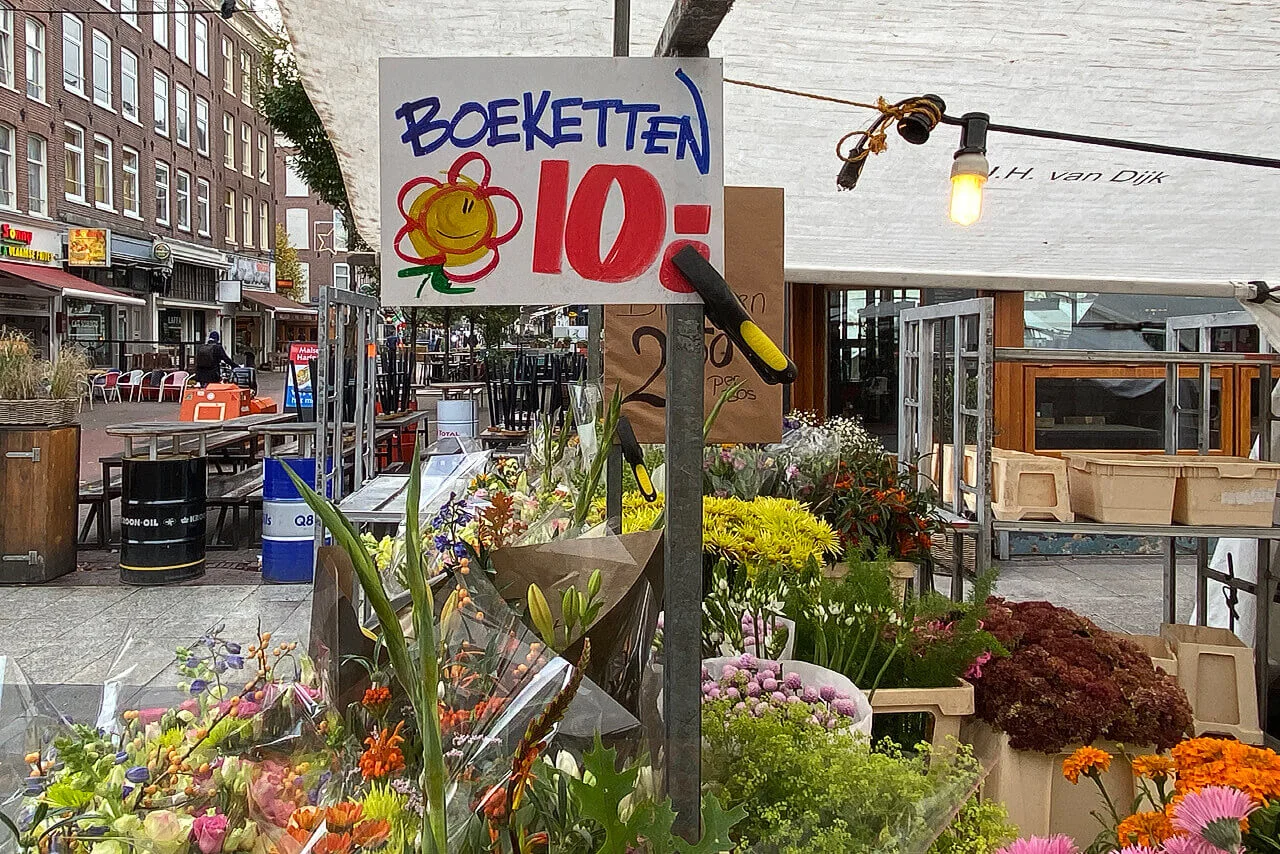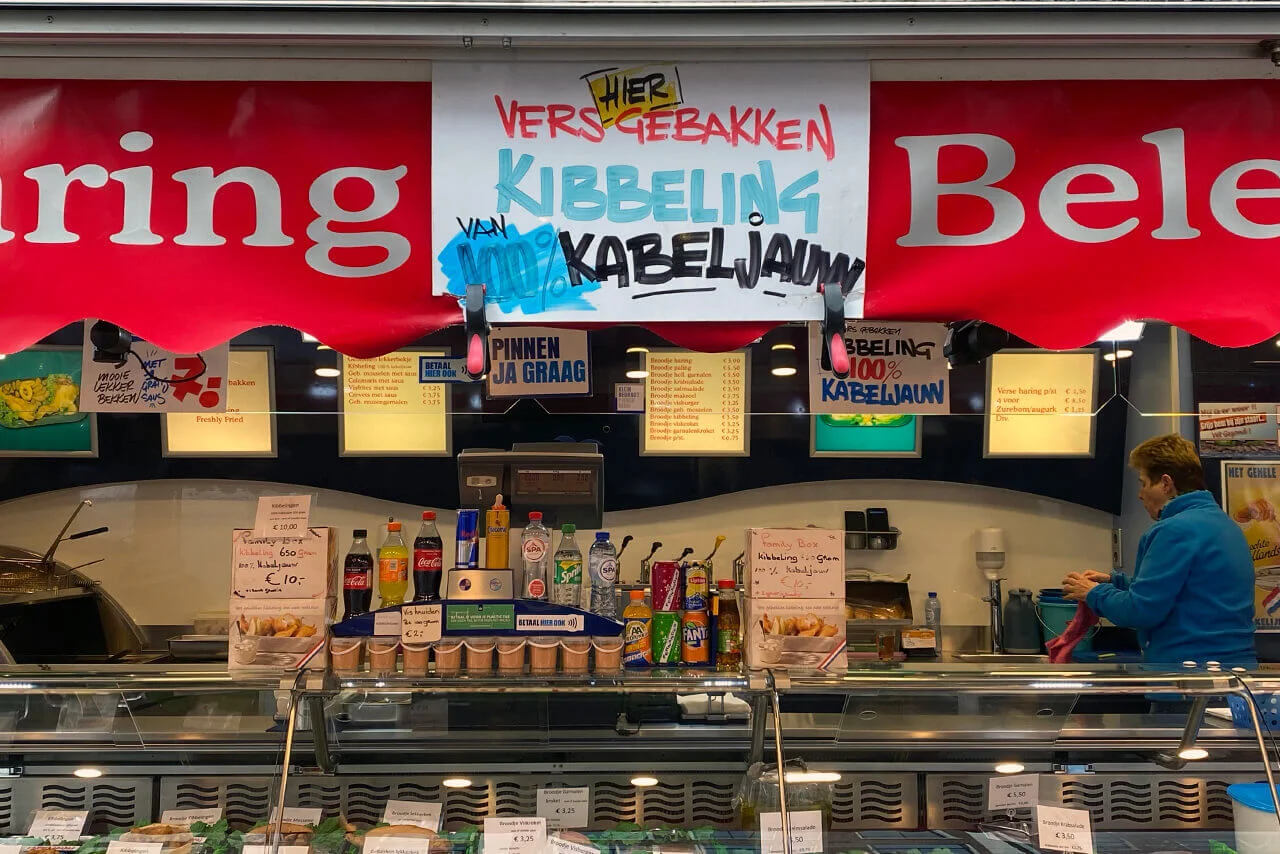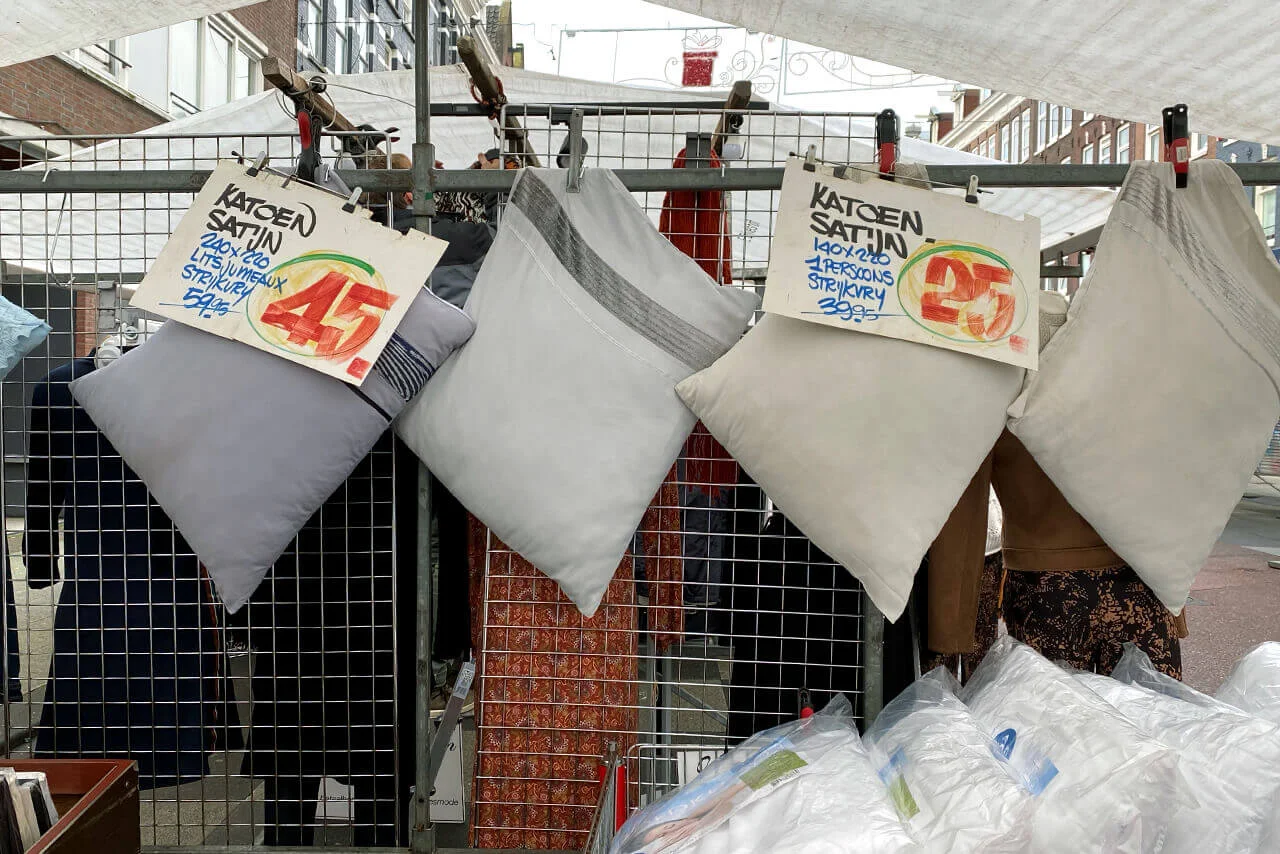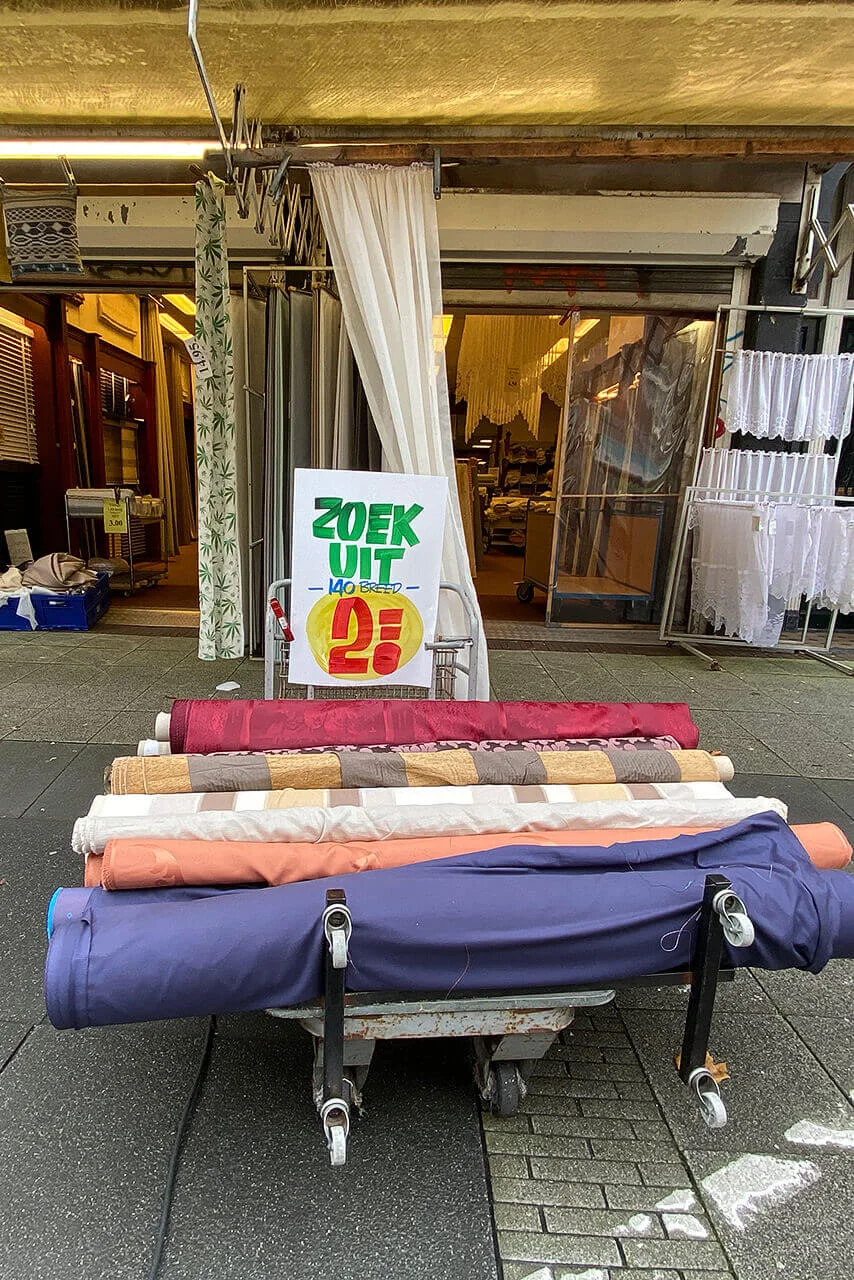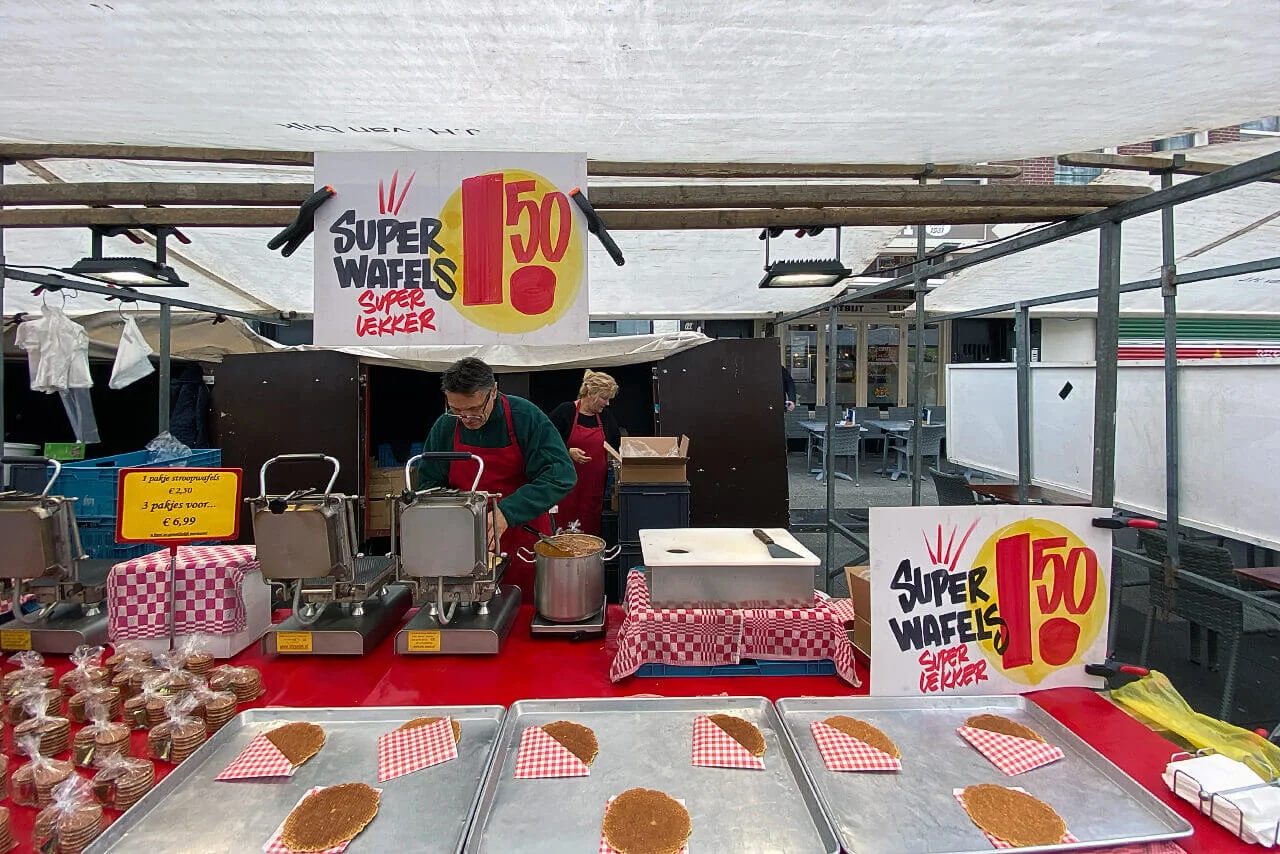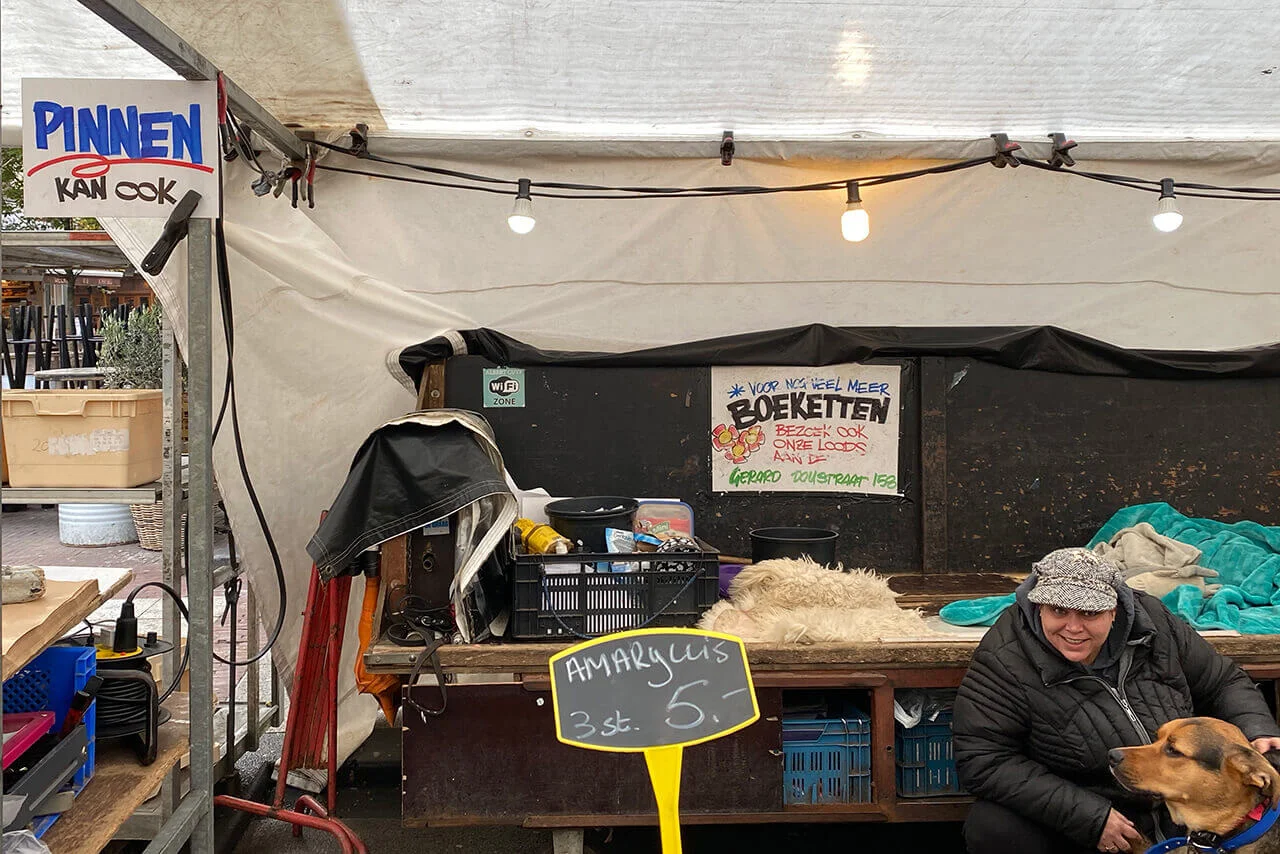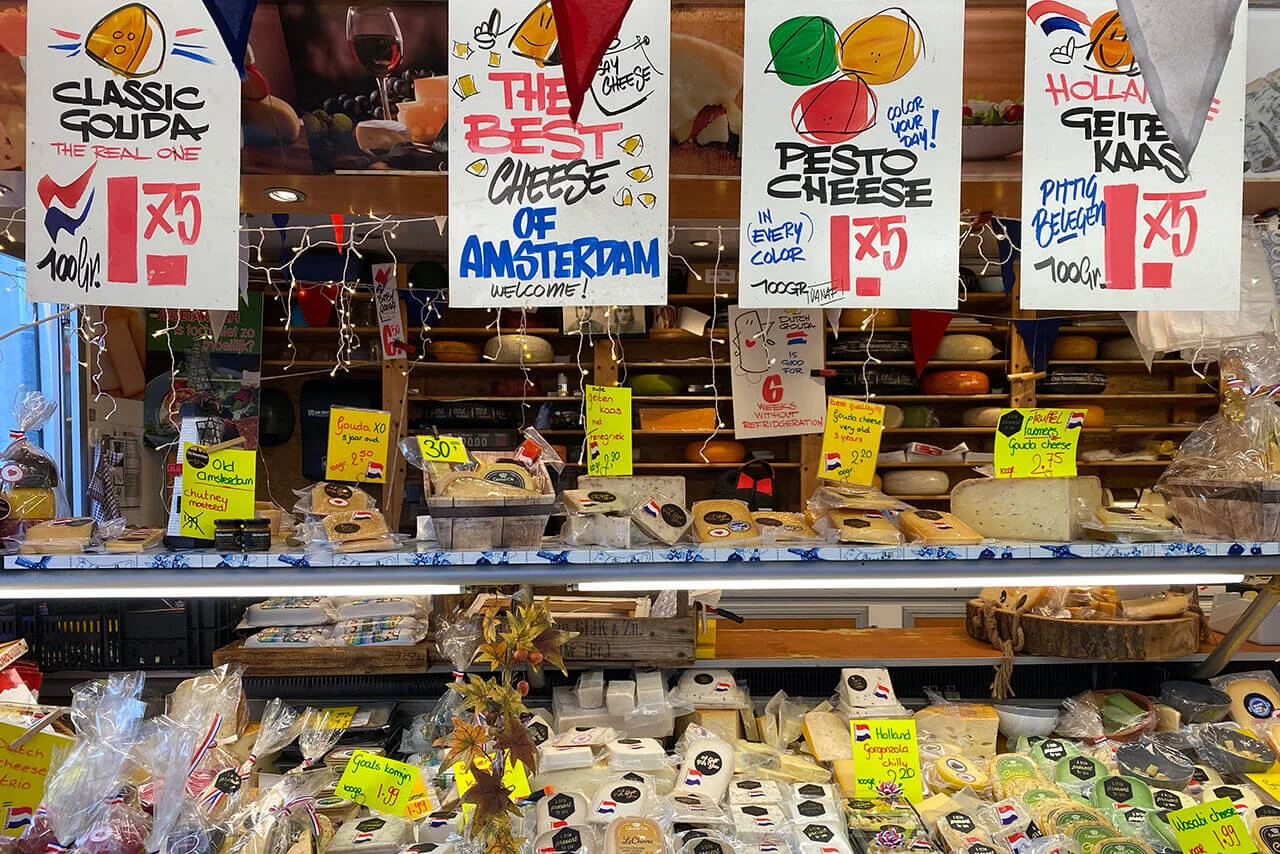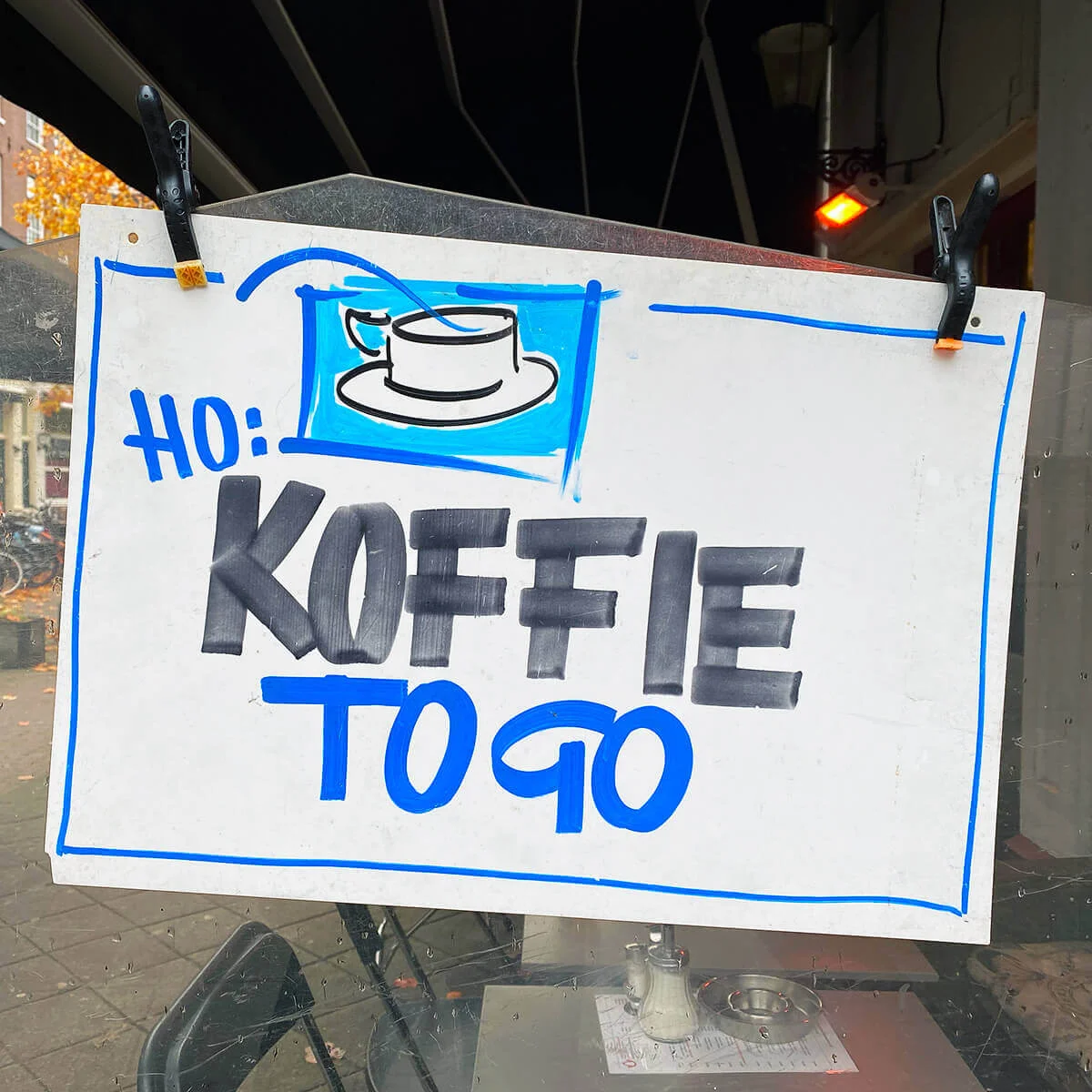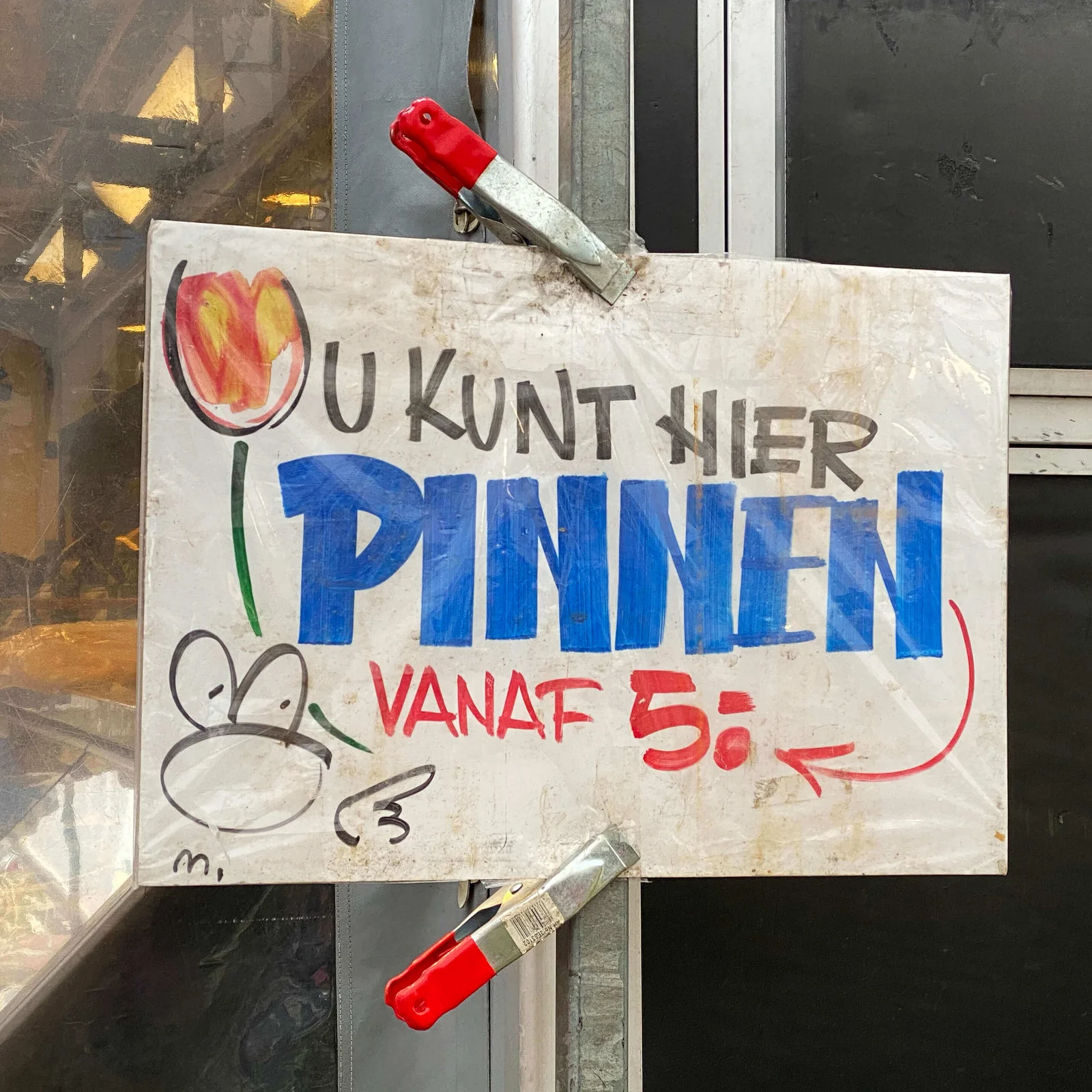
Albert Cuyp Markt, Amsterdam
The Market Signpainter: Henry van der Horst
A November morning at the Albert Cuyp Market in Amsterdam. The distinctive style of the price signs at many stalls immediately catches the eye. Responsible for them is Henry van der Horst, who has been producing hand-lettered price cards for more than four decades.
Moving from market to market across the city, Henry takes on commissions directly on site. Using bold markers and vivid colours, he creates his reclame kaarten for all kinds of goods, subtly lending Amsterdam’s markets a shared visual identity.
Henry van der Horst has since attained a degree of local renown. After the Dutch graphic designer Willem Verweijen documented his work in 2015—thereby sparking wider interest—de Volkskrant published a feature on his practice, followed by several design blogs.
Today, alongside his regular commissions, Henry’s activities also extend into the realm of popular culture, as well as workshops.